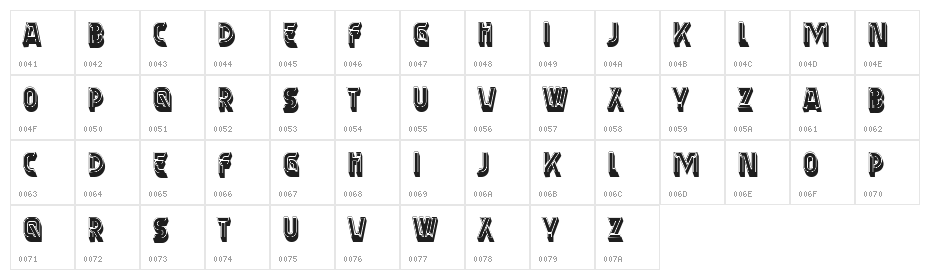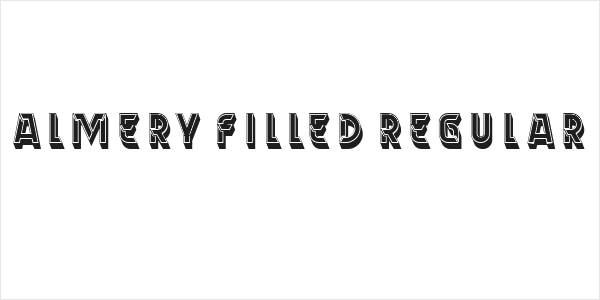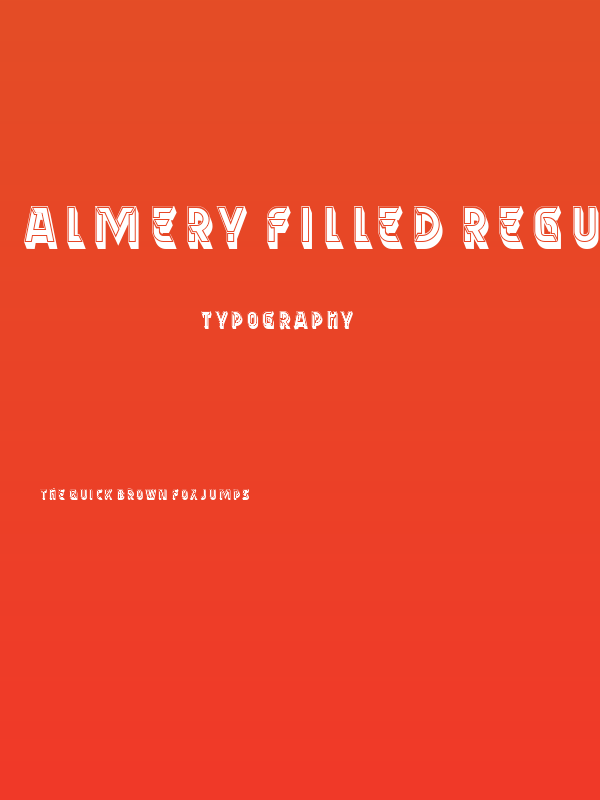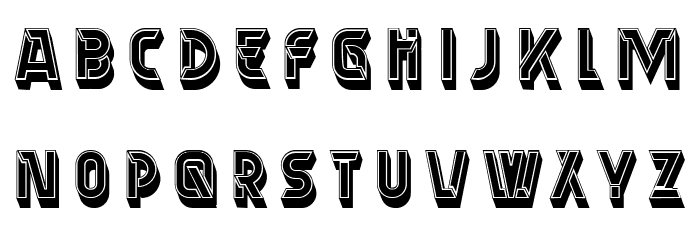
Almery Filled Regular Font
Almery Filled Regular Description
This font features a bold, geometric design with a filled interior and a distinct outline that gives it a three-dimensional appearance. The characters are constructed with sharp angles and straight lines, creating a modern and dynamic look. The uppercase letters are uniform in height, contributing to a cohesive and structured aesthetic. The font's boldness and unique style make it stand out, suitable for attention-grabbing headlines or titles. Its design is reminiscent of architectural elements, with a futuristic twist that adds to its visual appeal.
| Proposed Projects | Ideal for posters, logos, branding, and any project requiring a modern, eye-catching typeface. |